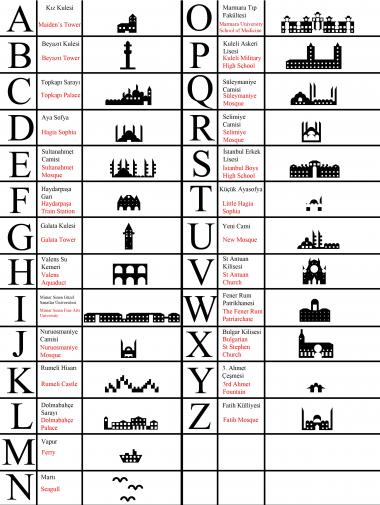
This font is beautifully crafted. I love the seagulls! 10/10.
An interesting FS cityscape ... is Istanbul your home?
Another brilliant font from birisi, very nice :)
I came to istanbul as an university student and ı quickly fall in love with the city. I asked my friends while making this, to help me remember some historical buildings but at the end ı had to cancel out most because ı wasn’t able to do them (especially curvy shapes such as bosphorus bridge). I’m glad to see people like it, ı enjoyed it while making it too 